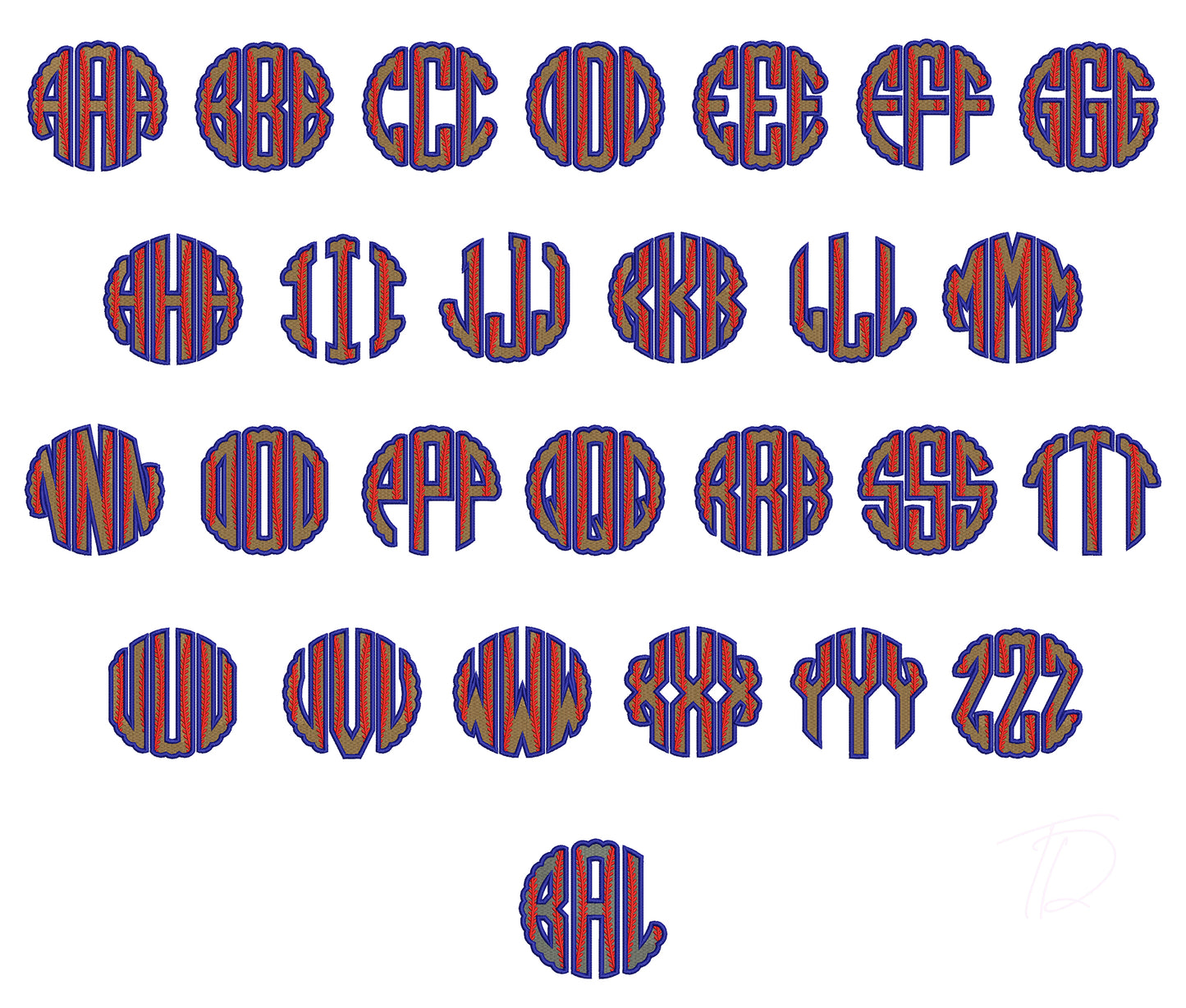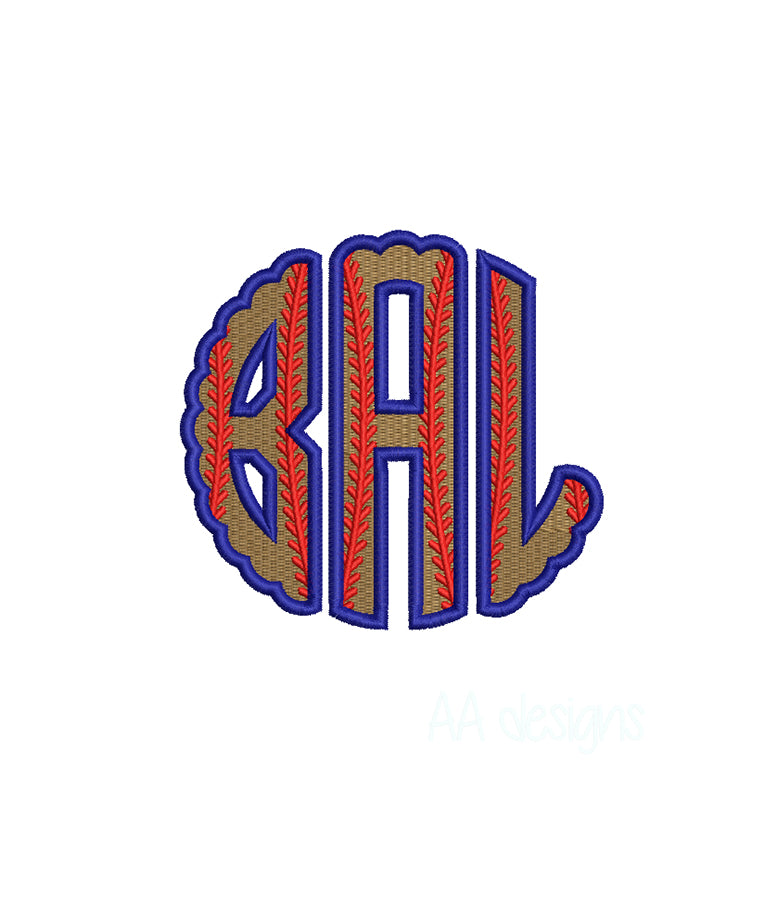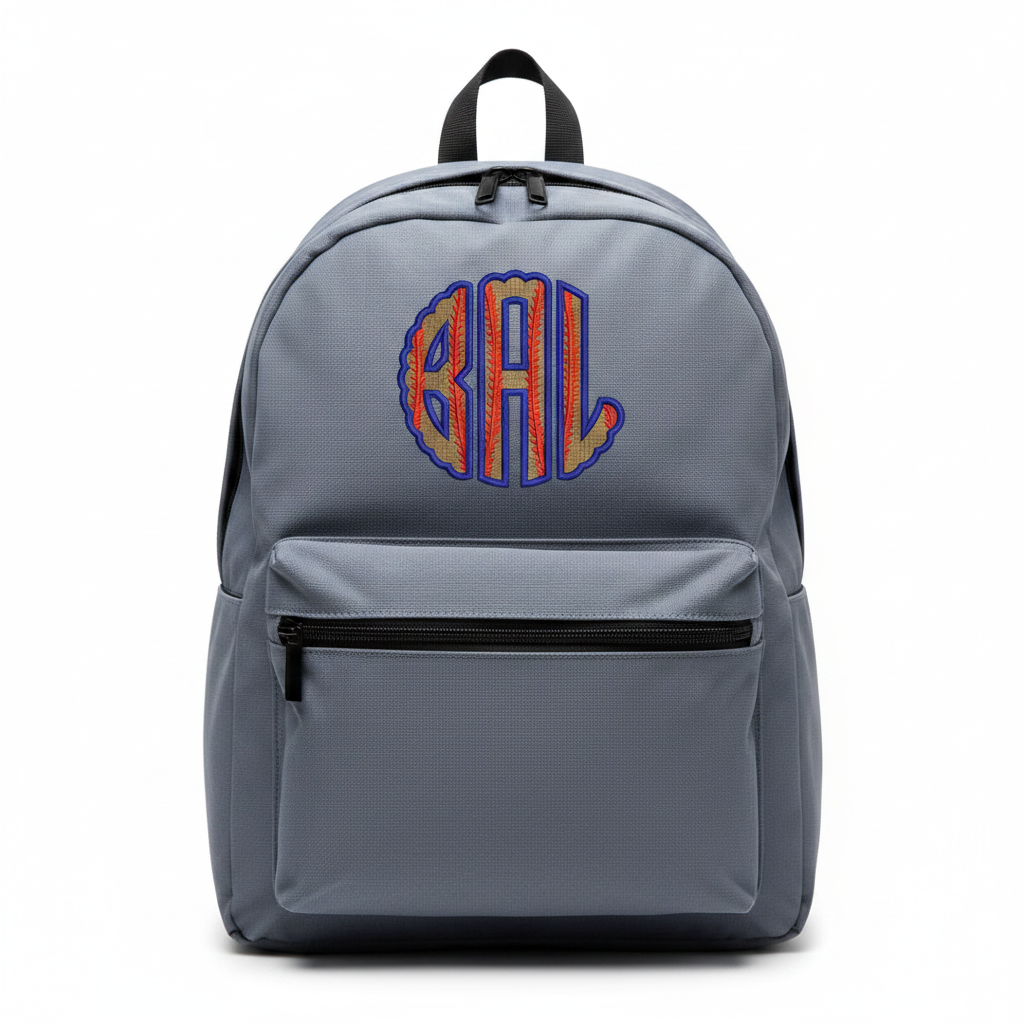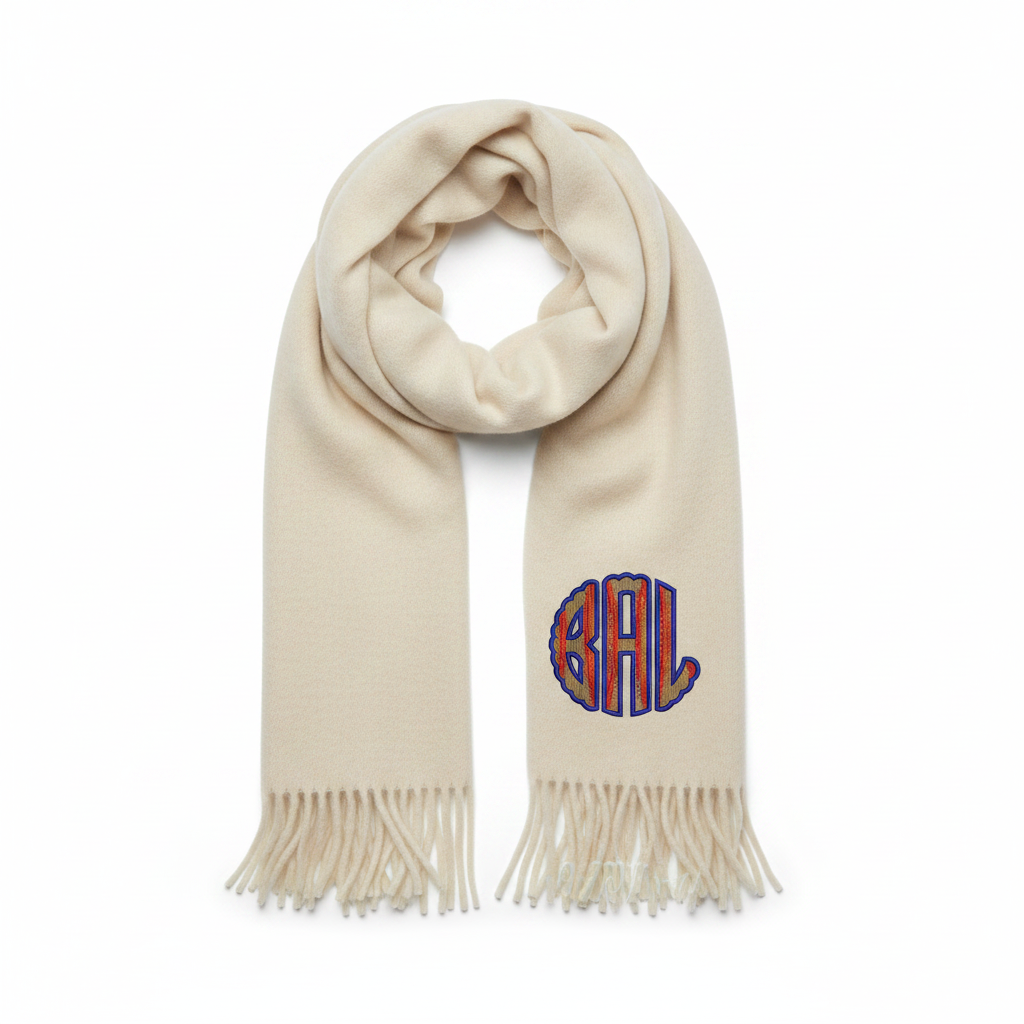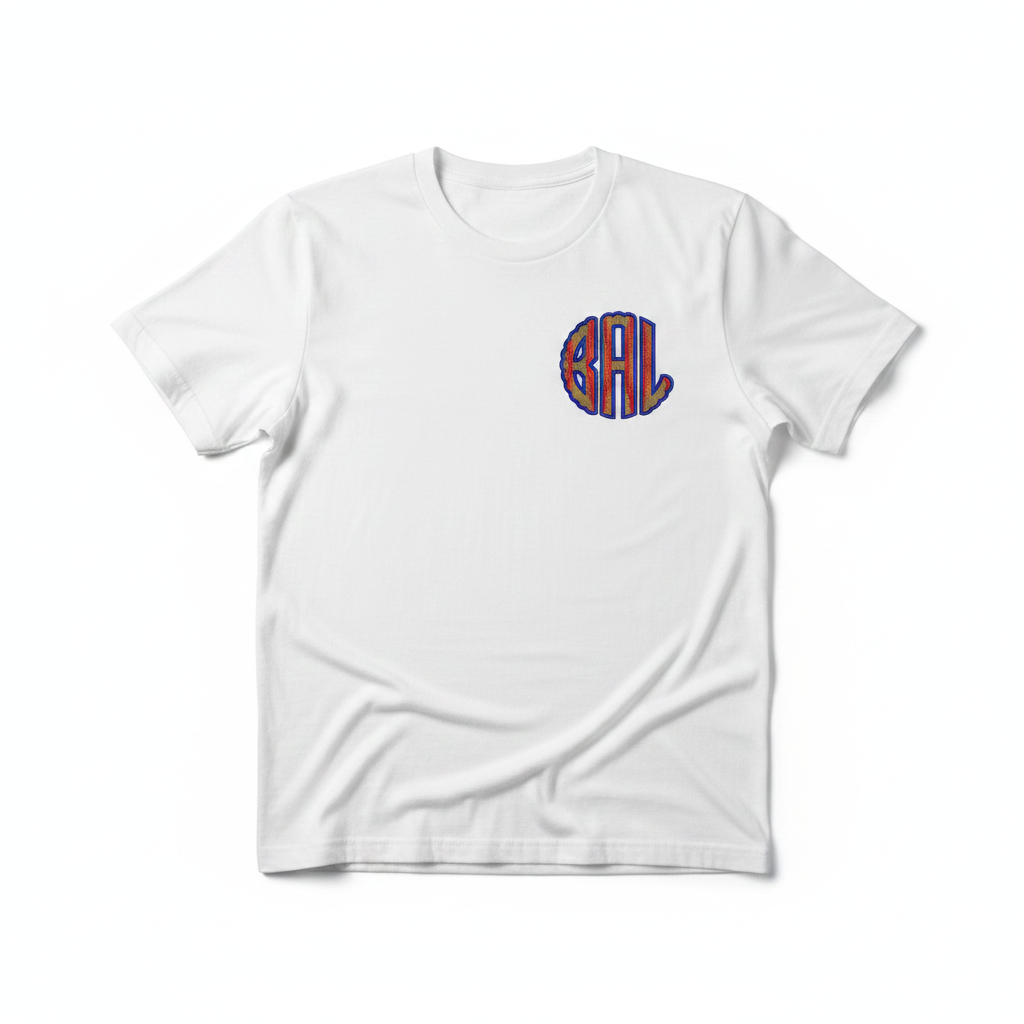
About This Font
The Scallop Baseball Fill embroidery font brings a bold, sporty aesthetic to your embroidery projects. Featuring a classic baseball-style alphabet filled with a beautiful scallop stitch pattern, this font adds texture and dimension that flat-fill fonts simply can't match. Whether you're personalizing a baseball cap, decorating a team jersey, or creating custom gifts, the Scallop Baseball Fill font delivers professional-quality results every time.
The scallop fill stitch creates a layered, shell-like texture that catches the light beautifully on finished pieces — making your embroidery stand out on hats, bags, apparel, and accessories.
Perfect For
- Baseball caps and structured hats
- Team uniforms and sports apparel
- Personalized gifts and accessories
- Bags, backpacks, and tote bags
- Towels, blankets, and home décor
- Kids' clothing and school items
- Monogramming and name embroidery